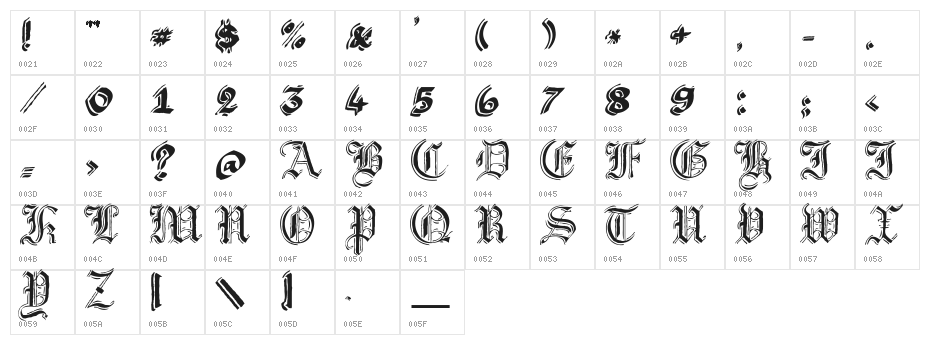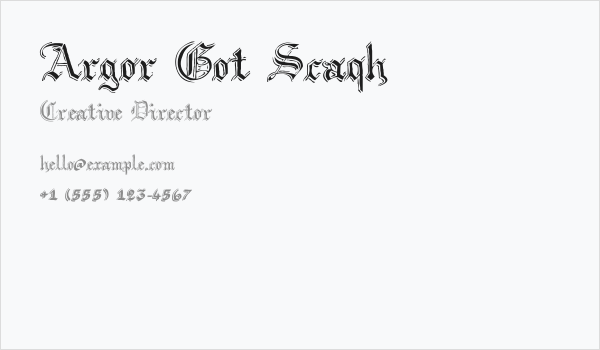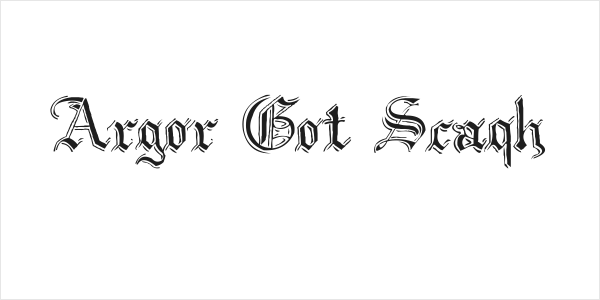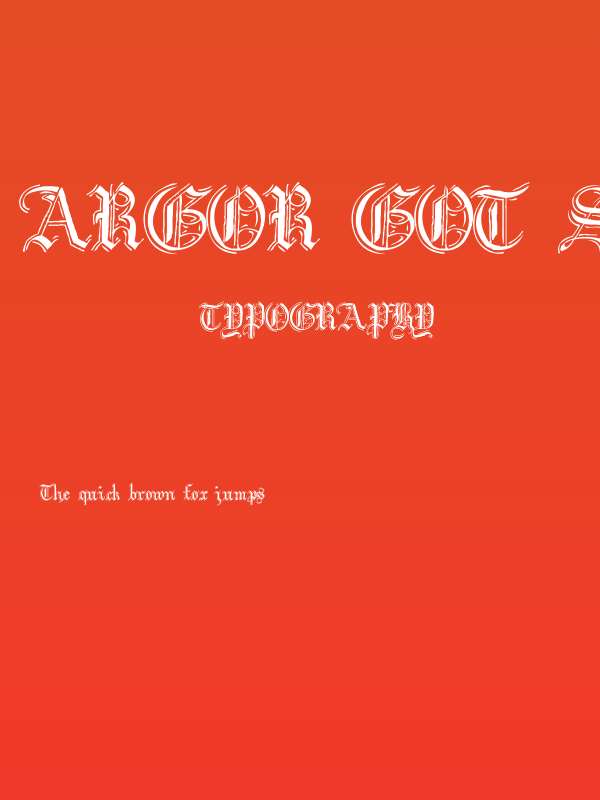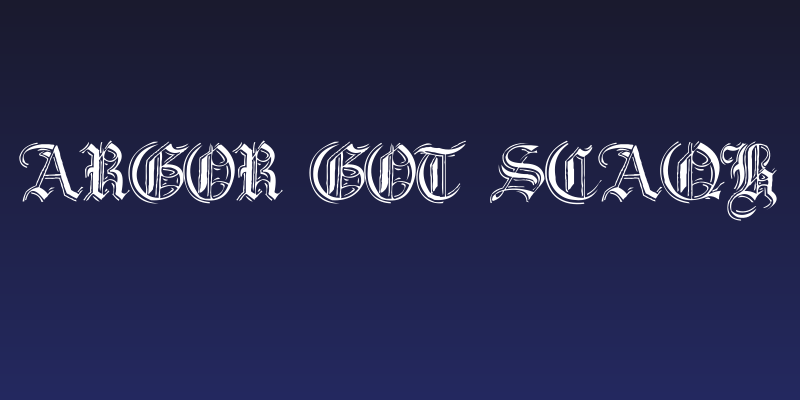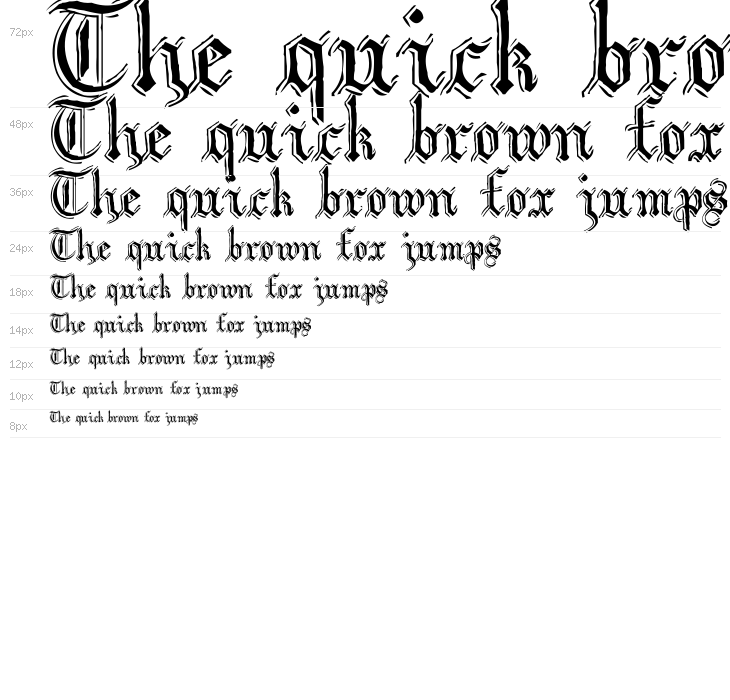
Argor Got Scaqh Font
Argor Got Scaqh Description
This font exudes a classic and ornate style, reminiscent of traditional blackletter typography. Each character is intricately designed with sharp, angular strokes and elaborate flourishes, giving it a highly decorative appearance. The uppercase letters are bold and commanding, while the lowercase letters maintain the same intricate detailing, offering a cohesive look throughout. The numerals and special characters are equally ornate, ensuring consistency across all text elements. This font's historical and gothic aesthetic makes it ideal for projects that require a touch of elegance and tradition.
| Use Case | Headlines, Logos, Decorative text |
| Proposed Projects | Ideal for certificates, invitations, historical documents, and branding that requires a traditional or gothic touch. |